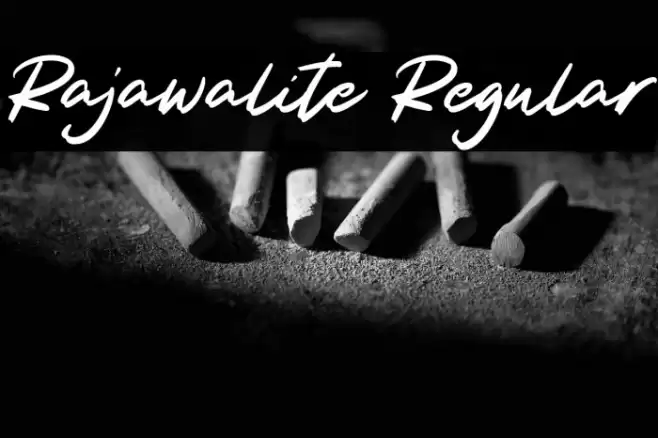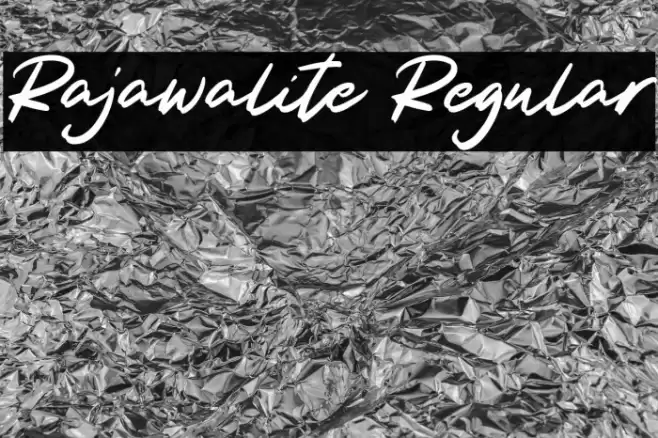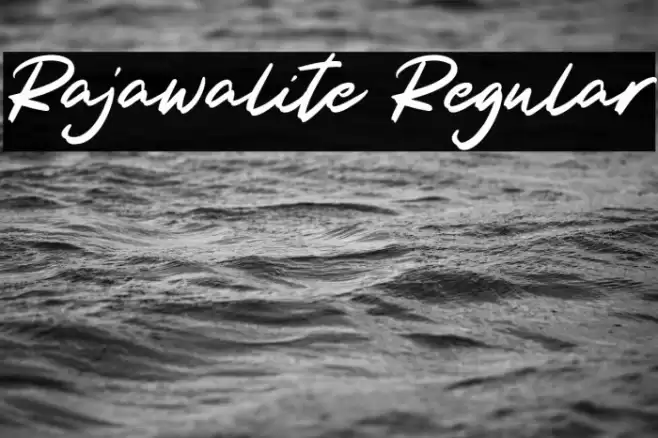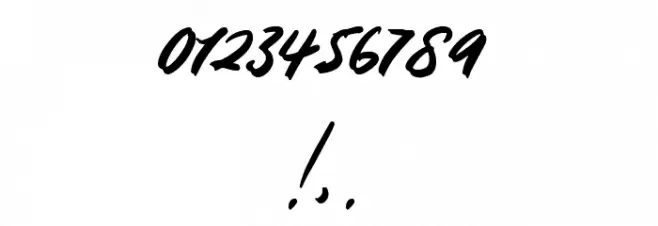
Rajawalite Regular Font
Rajawalite Regular Description
This font exudes a dynamic and energetic feel with its bold, flowing script style. The characters are crafted with a sense of movement, featuring smooth, sweeping curves and a slightly irregular baseline that adds to its handwritten charm. The uppercase letters are particularly striking, with a sense of grandeur and flair, while the lowercase letters maintain a consistent, fluid form. The numerals and special characters are equally expressive, ensuring a cohesive look across all text elements. This font is perfect for projects that require a personal touch or a sense of elegance and spontaneity.
A bold, flowing script font with dynamic, handwritten charm from Regular fonts.
- Proposed Projects: Ideal for branding, invitations, greeting cards, and social media graphics.
- Use Case: Logos, Headlines, Invitations